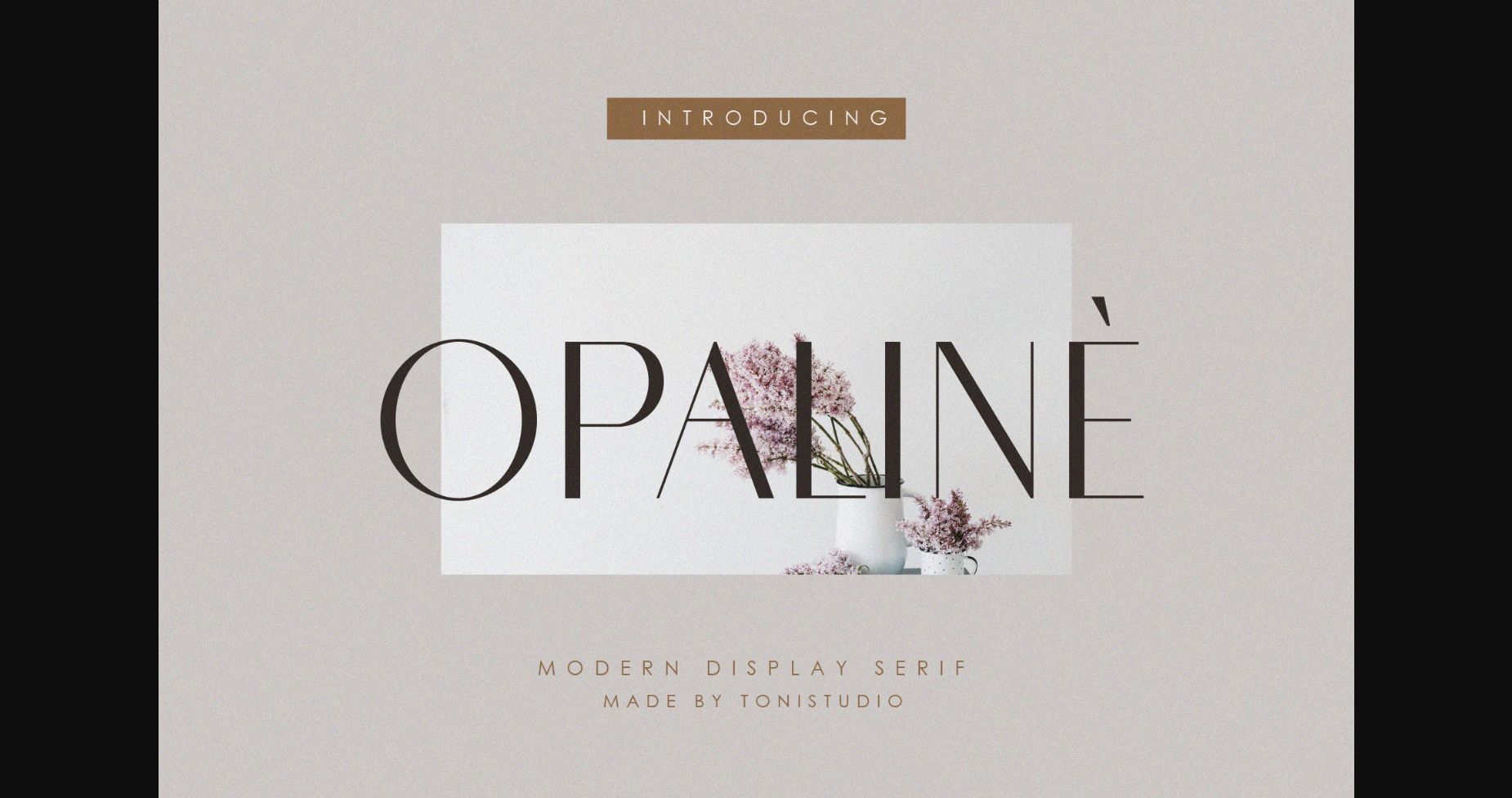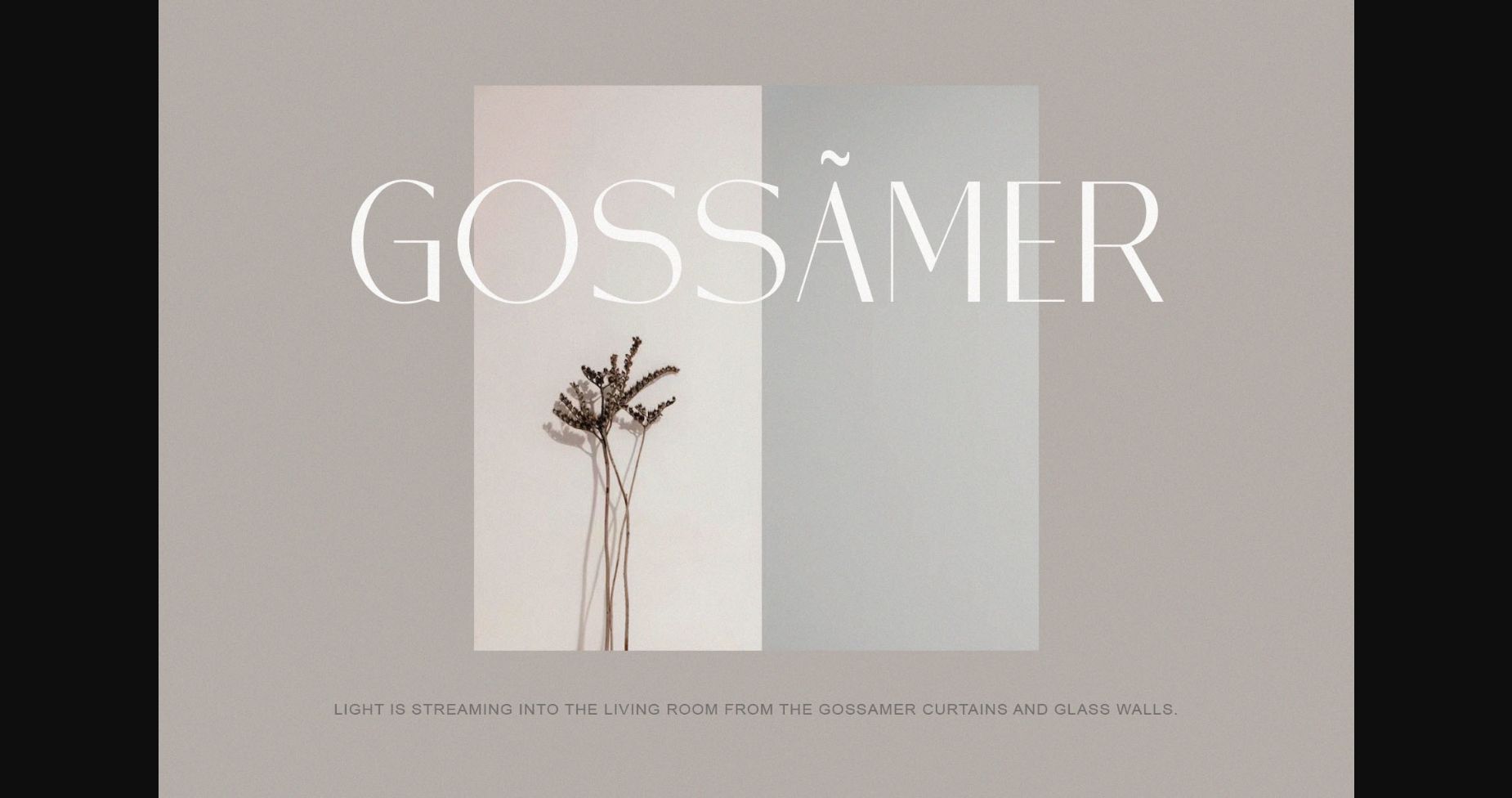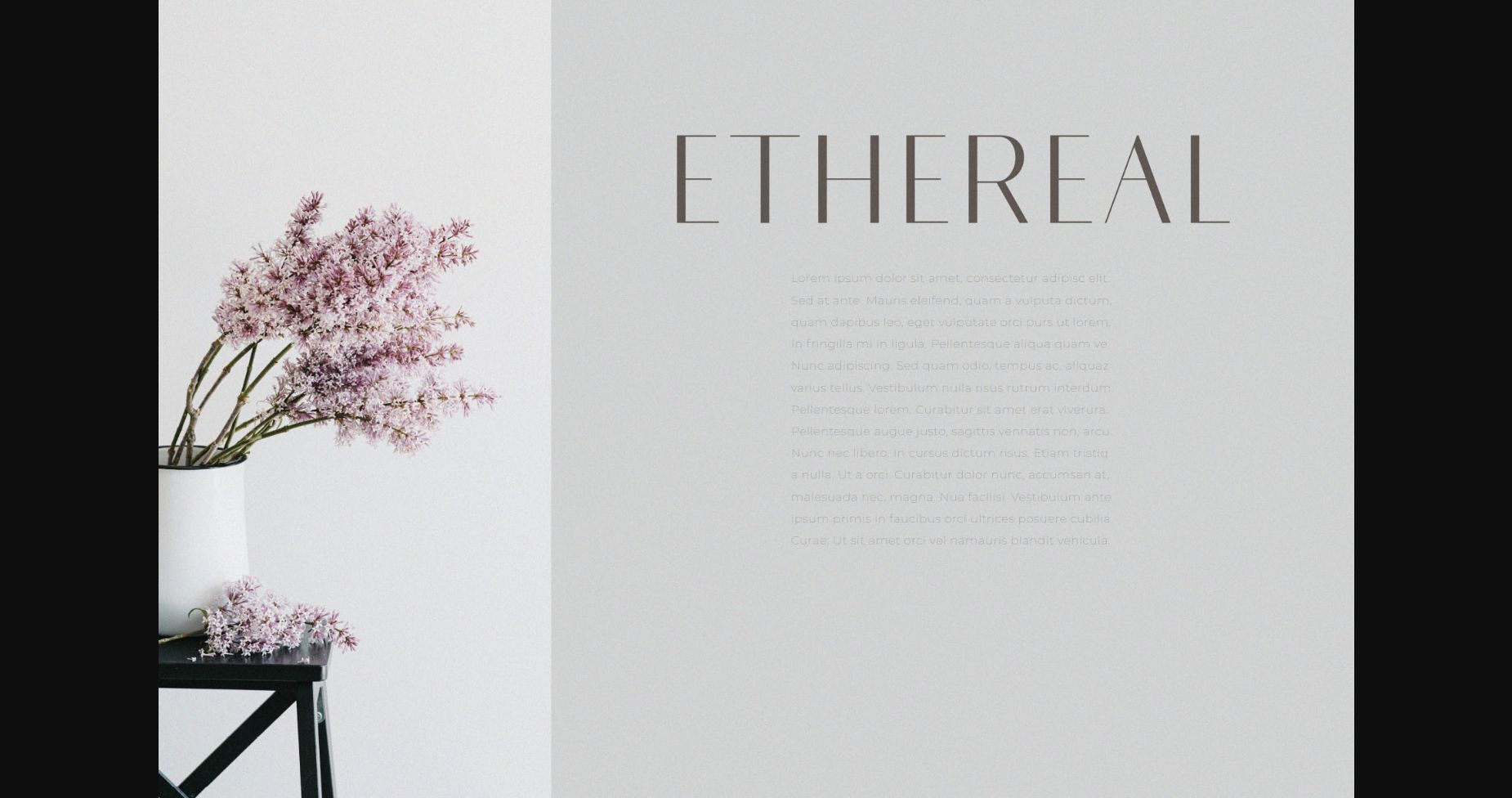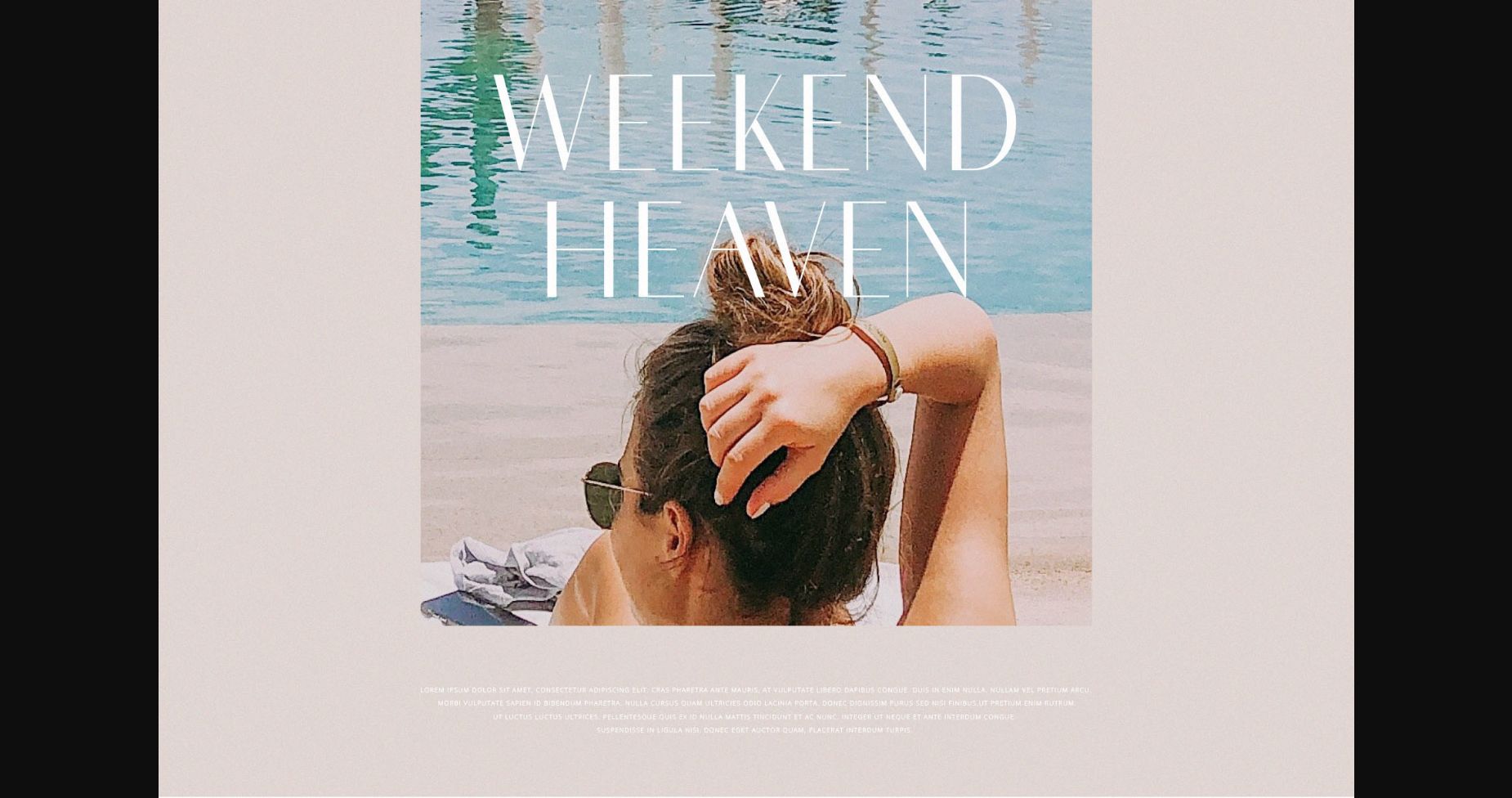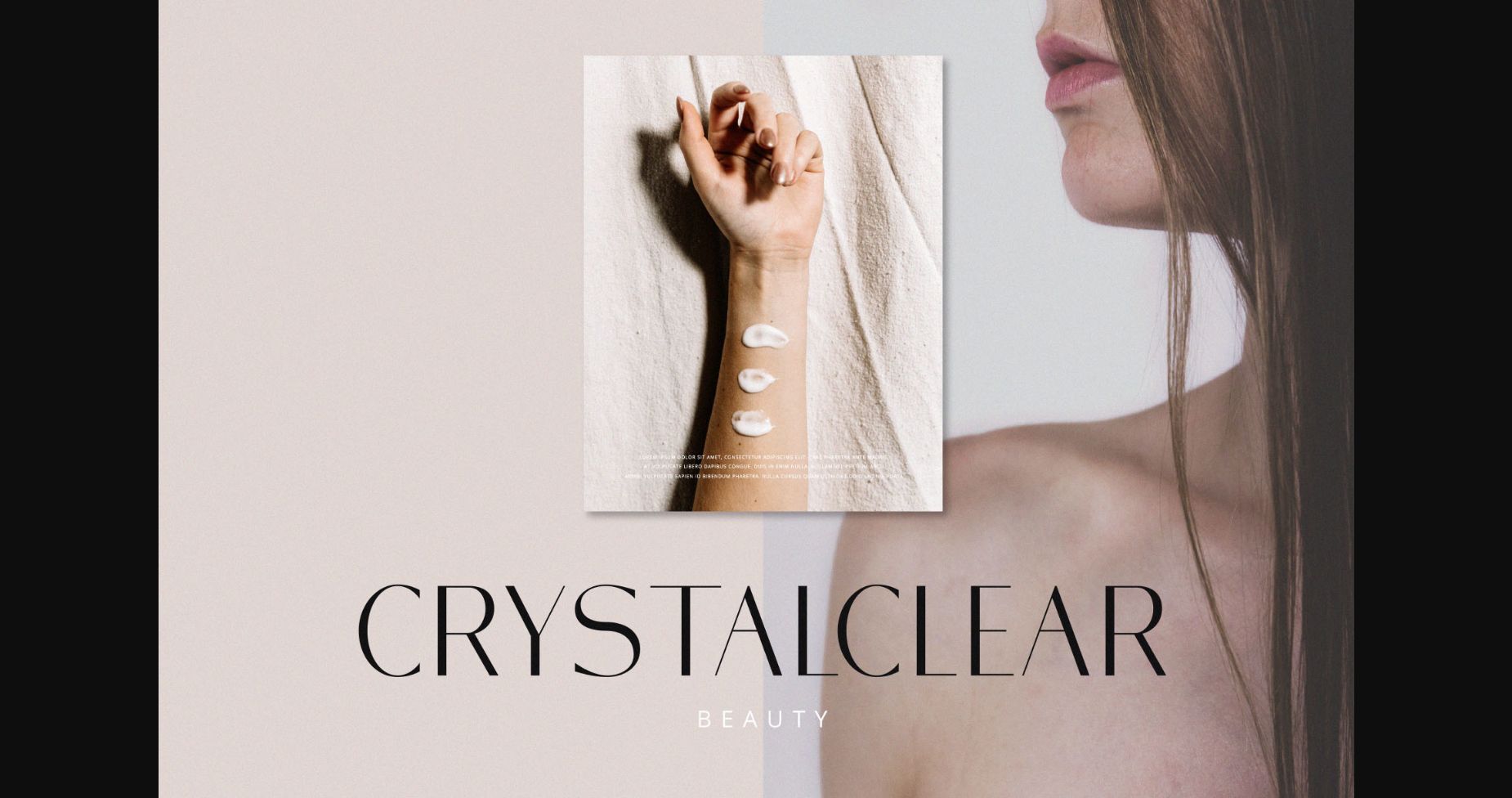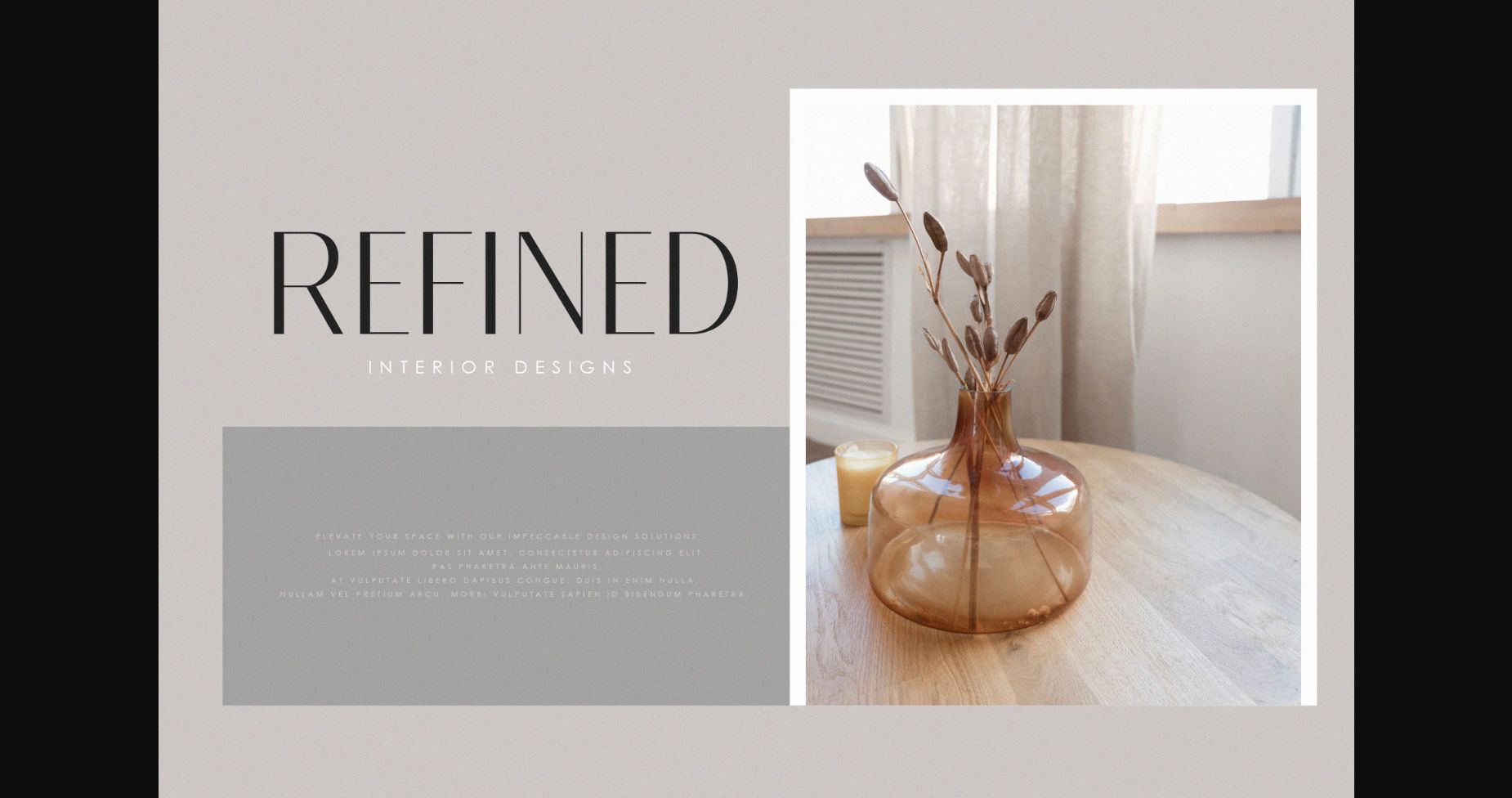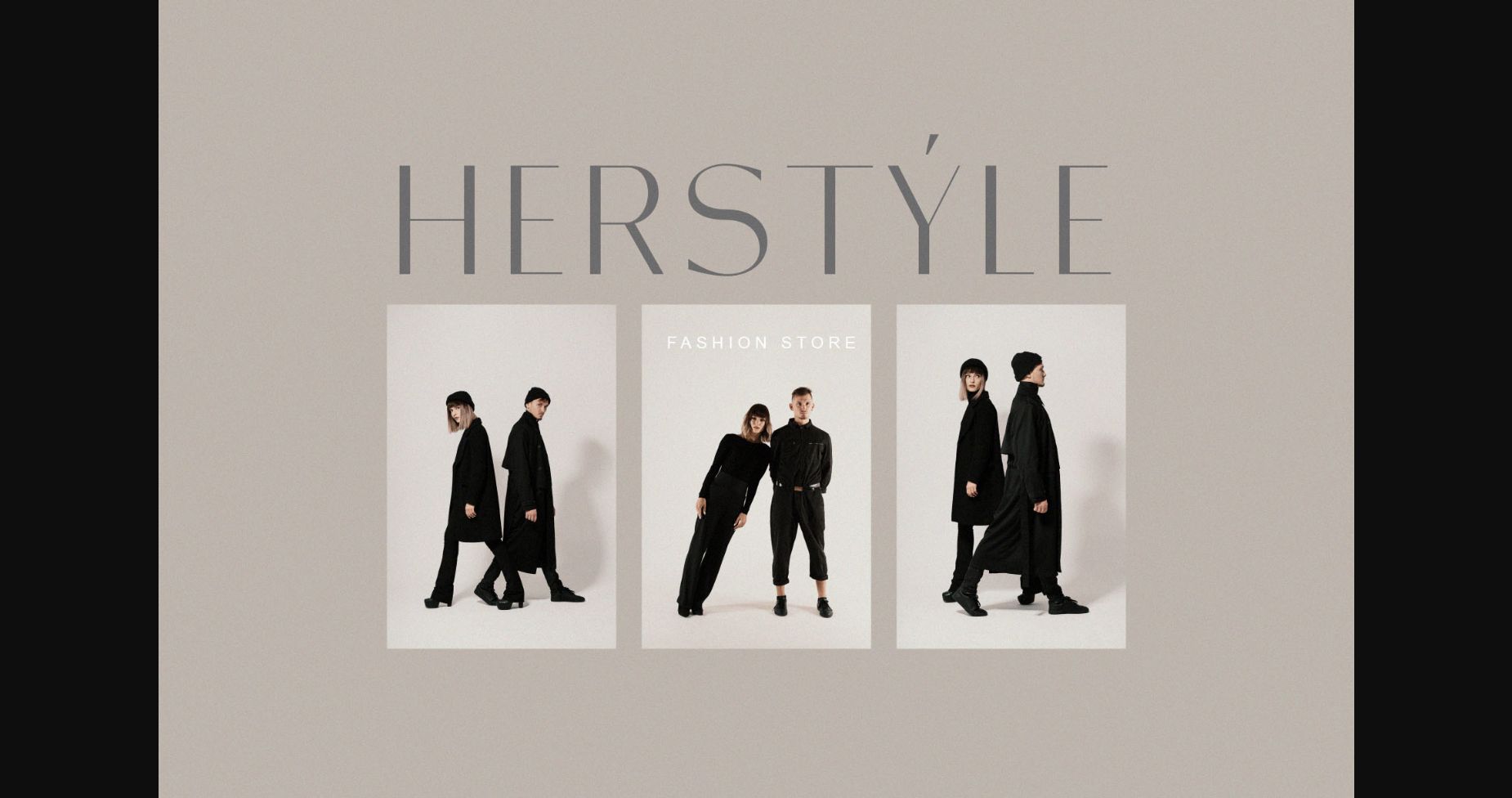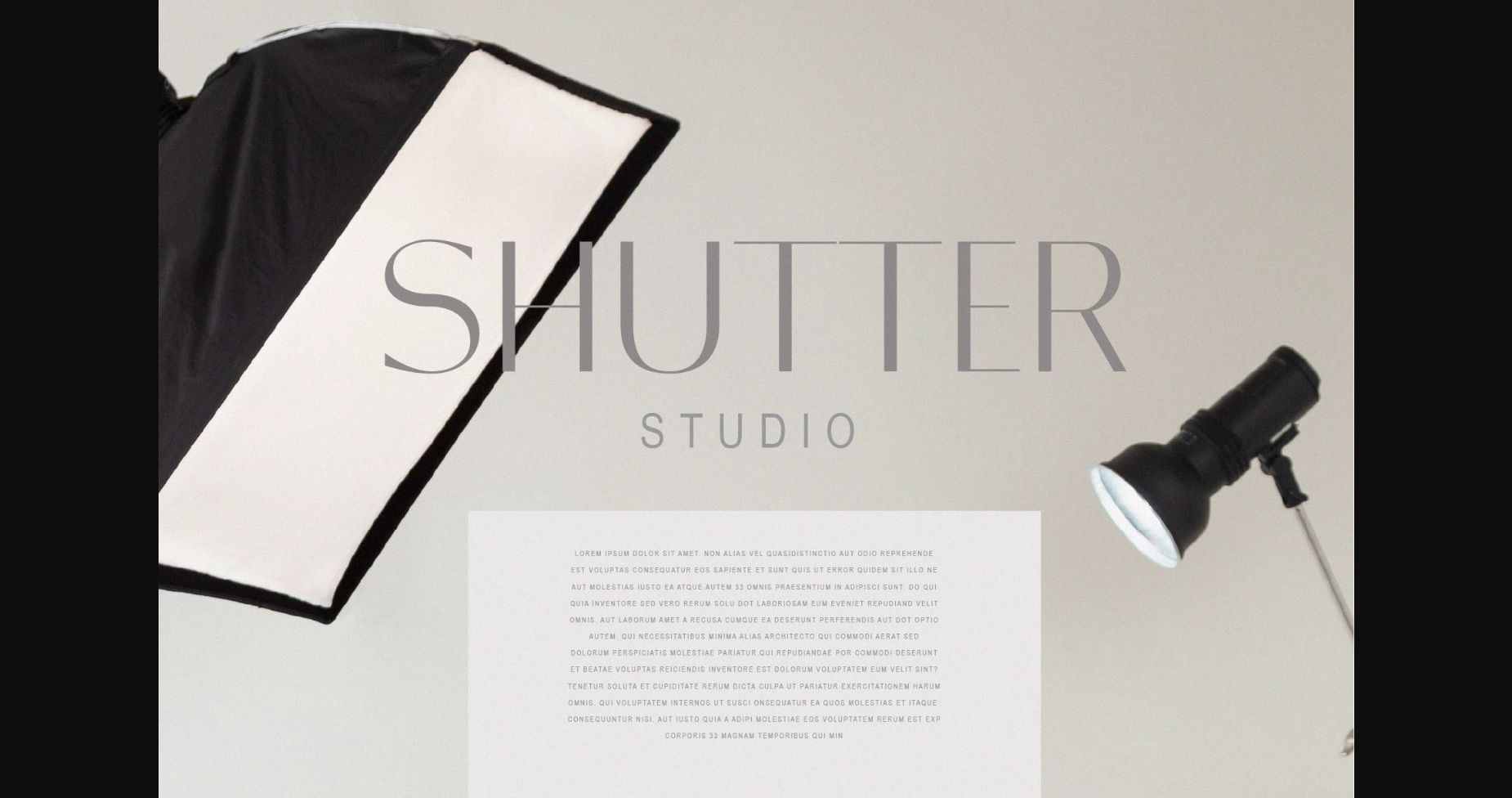
About Opaline Font
Introducing Opaline, a classy, modern sans serif typeface that is comfortable in fashion and high culture circles. This font stands alone as a header or editorial font. Opaline works best in display usage, headlines, logotypes, labels and so on, Opaline is an elegant, simple, high-contrast sans serif